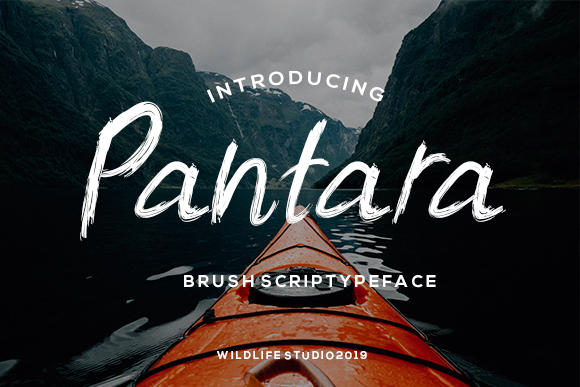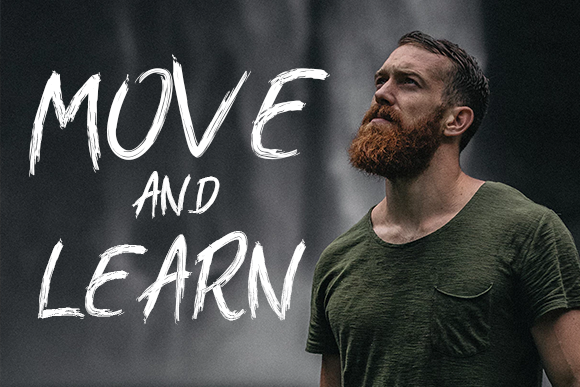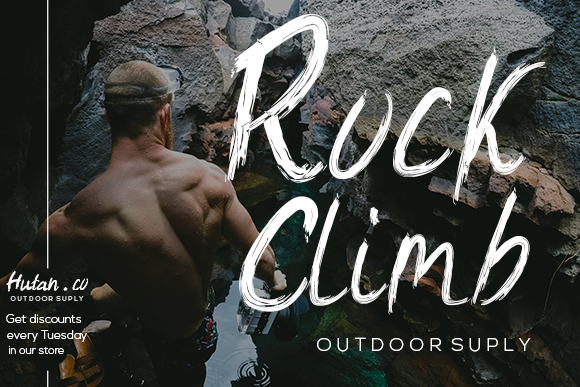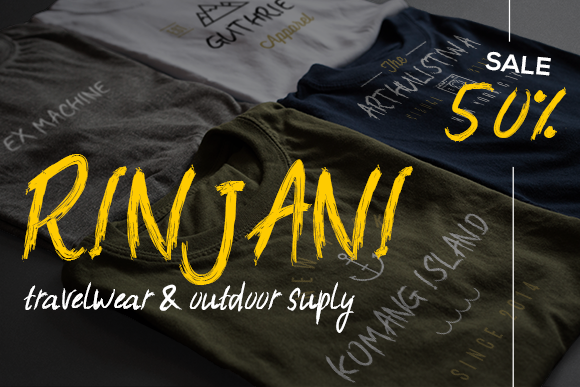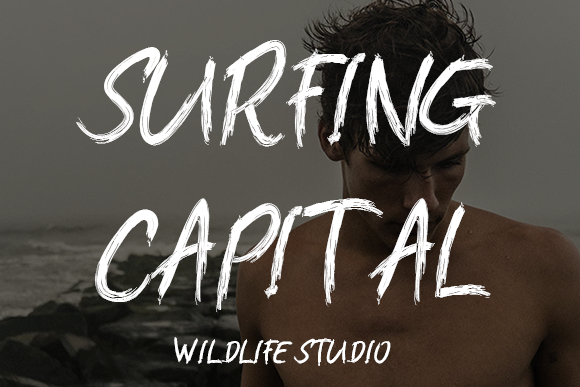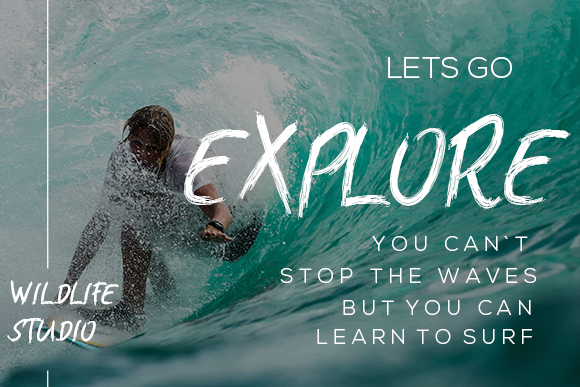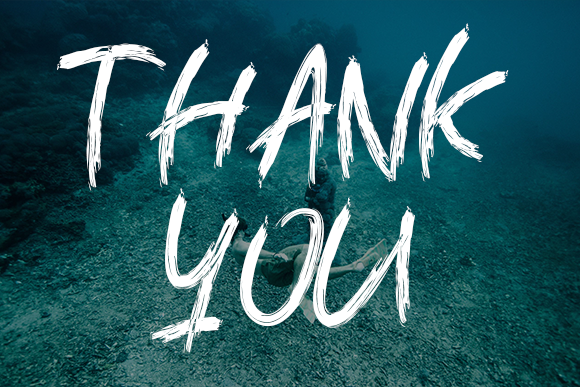
Pantara Font
About Pantara Font
The Pantara is a dry brush script which was made from natural flow scratches with a signature style. It has a bold, sophisticated and modern style which can be used for logos & branding, invitations, stationery, wedding designs, social media posts, advertisements, product packaging, product designs, labels, photography, watermarks, special events or anything that needs a handwritten touch.